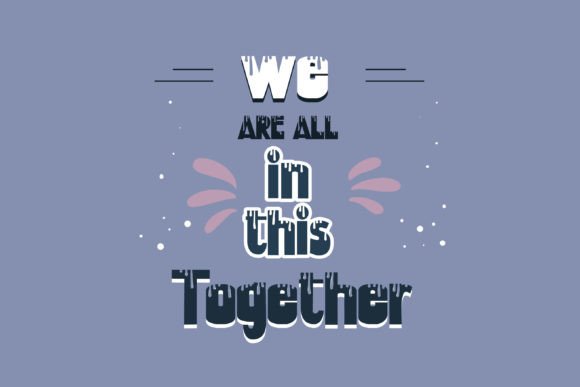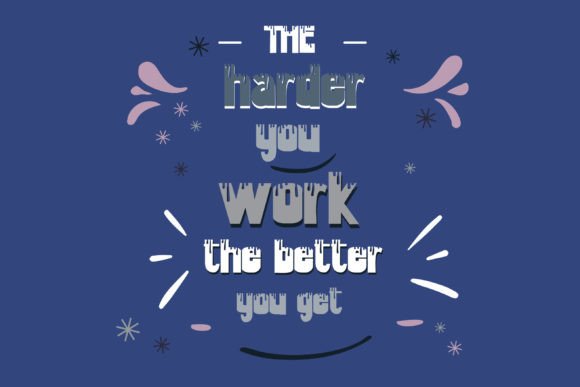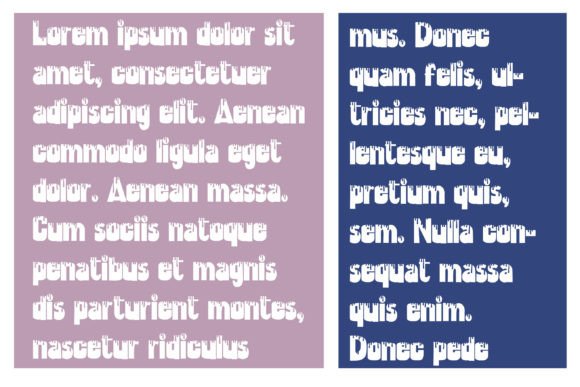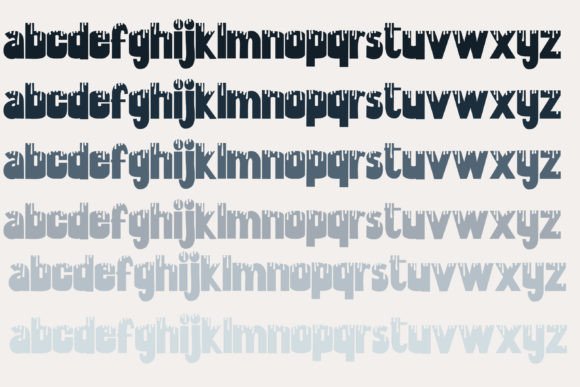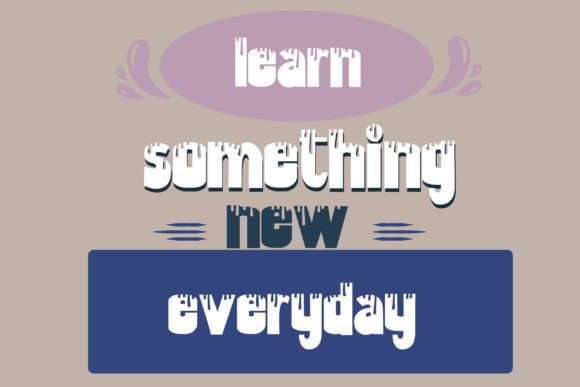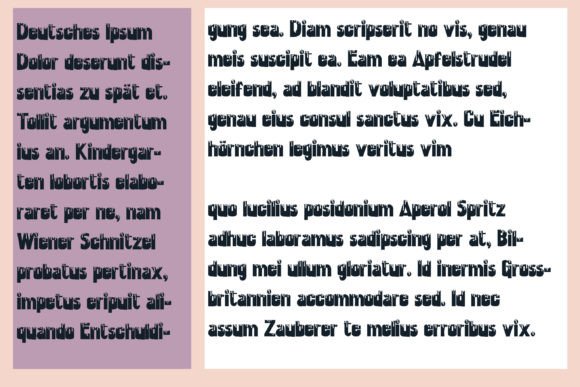
Introduction to Murder Rudge Font
Have you ever found yourself staring at a blank canvas, searching for the perfect font to bring your creative vision to life? It’s a moment we’ve all experienced – the spark of inspiration, the blank page, and the desperate search for the perfect design resource. For those of us who call ourselves designers, this moment is all too familiar. But what happens when you stumble upon a font that not only captures your imagination but also adds an eerie touch to your design?
Enter the Murder Rudge Font, a blocky display font that exudes an unsettling charm. With its drippy, oozy tops, this font is a game-changer for designers looking to create unique t-shirt designs, Halloween posters, digital designs, horror stickers, and many more.
Murder Rudge Font
Honest Review: Murder Rudge Font
I recently stumbled upon the Murder Rudge Font, a free download that caught my attention. As a designer, I’m always on the lookout for high quality design resources to elevate my creative projects.
The font itself is a display font, perfect for adding a touch of edginess to your designs. It features a transparent background, which makes it versatile for use in various design contexts. ✨ One of the things that stands out about this font is its unique character set, which includes a range of uppercase and lowercase letters, as well as punctuation marks.
- Unique character set with uppercase and lowercase letters, and punctuation marks
- Transparent background for versatile use
However, I did notice a few limitations: ⚠️ The font is not suitable for small text, as the letters can become distorted at smaller sizes. Additionally, the font’s bold weight can be a bit too aggressive for some designs.
Overall, I’m impressed with the Murder Rudge Font. It’s a great addition to any designer’s toolkit, especially for creative projects that require a bold and edgy look. With its unique character set and transparent background, it’s a versatile font that can add a touch of personality to your designs.
Murder Rudge Font
The Murder Rudge Font is a high-quality design resource perfect for creative projects. This font features a transparent background, making it ideal for use on various backgrounds and designs.
Getting the Most Out of It
To get the most out of the Murder Rudge Font, experiment with different font sizes, colors, and combinations. Use it to create eye-catching headings, titles, or body text.
The Murder Rudge Font is ideal for:
- Creating unique and creative titles for social media, blogs, or websites
- Designing eye-catching posters, flyers, or brochures
- Adding a touch of elegance to business cards, resumes, or presentations